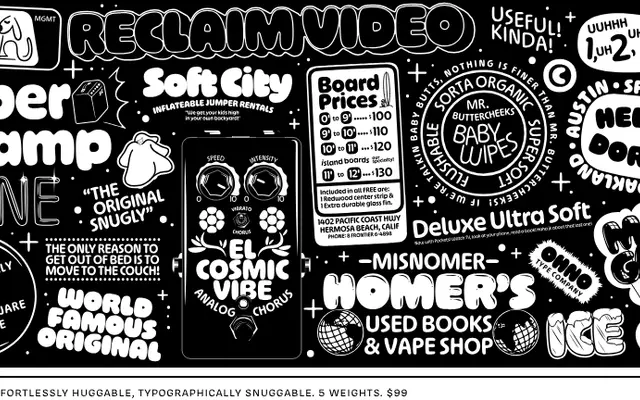
Ohno Softie
OH no Type · James Edmondson, Jamie Otelsberg, and Colin Ford · 2022
A rounded geometric sans from OH no Type that takes fully circular terminals and negative shapes to their logical extreme across five weights.
Designed by James Edmondson, Jamie Otelsberg and Colin Ford in 2022, every stroke end and interior counter is rounded, giving words a consistently soft, syrupy texture that most rounded sans faces only approximate. Five weights run from a near-elegant Light through to a full-bodied Black, with a variable font included in the complete family. OpenType features include alternate double-storey 'a', alternate 'f' and 't' without left crossbars, case-sensitive punctuation and fractions.
A geometric sans built entirely around circular terminals and rounded negative shapes, pushing the soft-edged rounded genre to an extreme with fully circular counters and ends throughout.